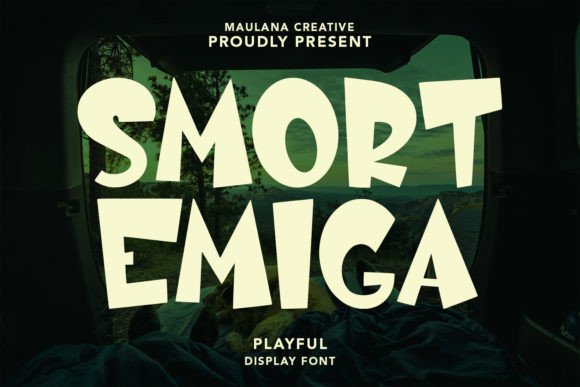
Introducing Smort Emiga Font, the ultimate choice for those seeking the best font for a hipster logo. Created by the talented Maulana Creative, this display font is a true masterpiece that will elevate your designs to new heights.
With its fun and cartoonish style, Smort Emiga Font brings a cheerful personality to any project. Whether you're designing a logo, creating an eye-catching poster, or developing a captivating website, this font is your secret weapon to making a lasting impression.
The playful and friendly look of Smort Emiga Font is perfect for capturing the attention of your target audience. Its unique design stands out from the crowd, ensuring that your brand will be remembered. From trendy start-ups to established businesses, this font is a must-have for anyone looking to create a memorable and engaging visual identity.
But Smort Emiga Font is not just about looks. It also offers a wide range of practical benefits. With its versatility, this font can be used in various projects, from social media graphics to packaging designs. Its clean and bold lines make it highly readable, ensuring that your message gets across effectively.
In conclusion, if you're searching for the perfect font for a hipster logo, look no further than Smort Emiga Font. Its fun, cartoonish style, combined with its versatility and captivating presence, make it the ideal choice for any design project. Get ready to take your creativity to the next level and leave a lasting impression with Smort Emiga Font.